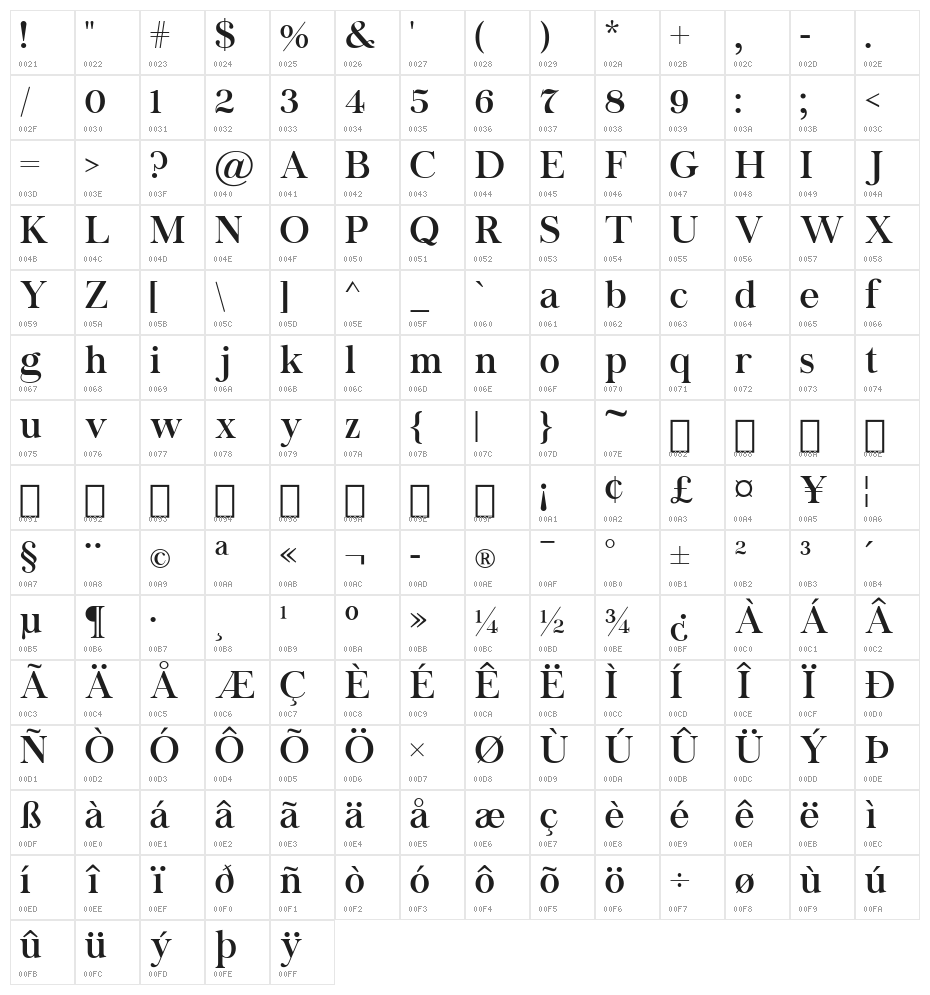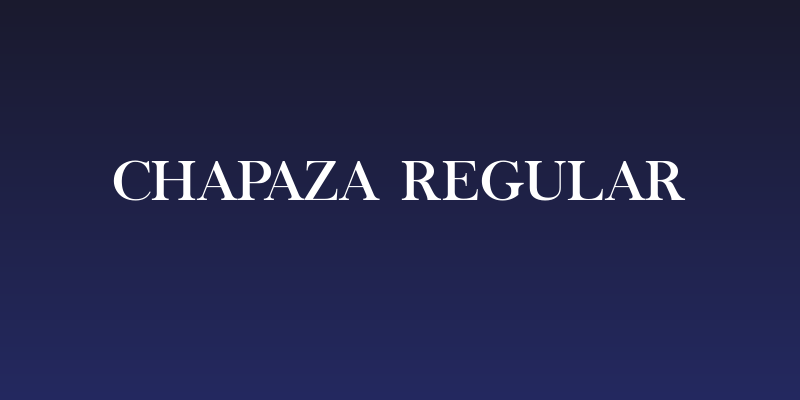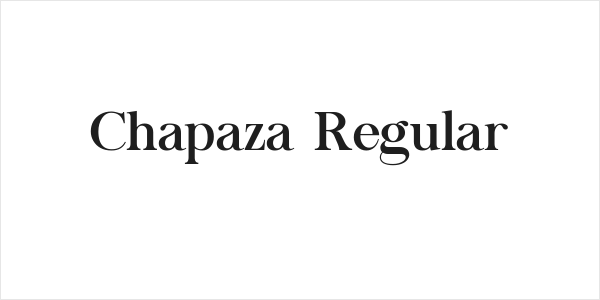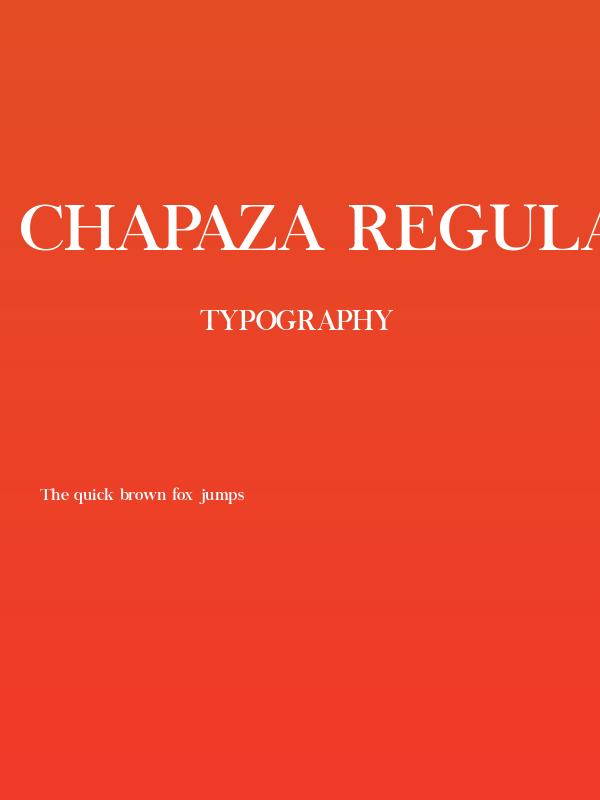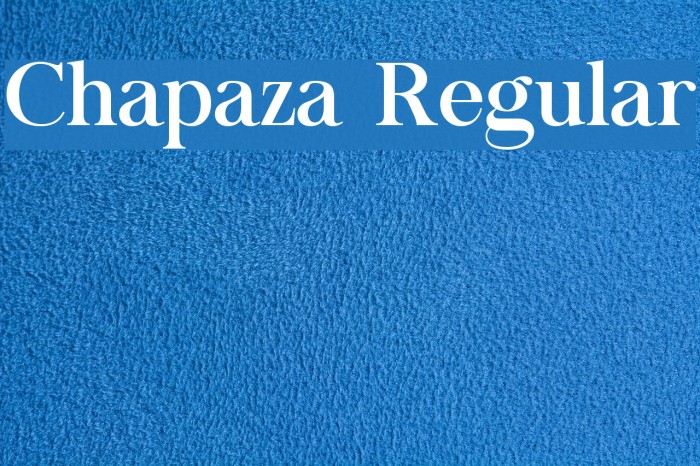
Chapaza Regular Font
Chapaza Regular Description
This font exhibits a classic serif style with a strong presence and elegant curves. The uppercase letters are bold and commanding, while the lowercase letters maintain a balanced and readable form. The numerals are distinct and well-proportioned, making them suitable for both display and text settings. The special characters are crafted with attention to detail, adding a touch of sophistication. The overall design is timeless, making it versatile for various applications.
| Categories | Serif |
| Overall Style | Classic |
| Use Case | Headlines, Body text, Logos |
| Proposed Projects | Ideal for editorial design, book covers, formal invitations, and branding projects that require a touch of elegance. |